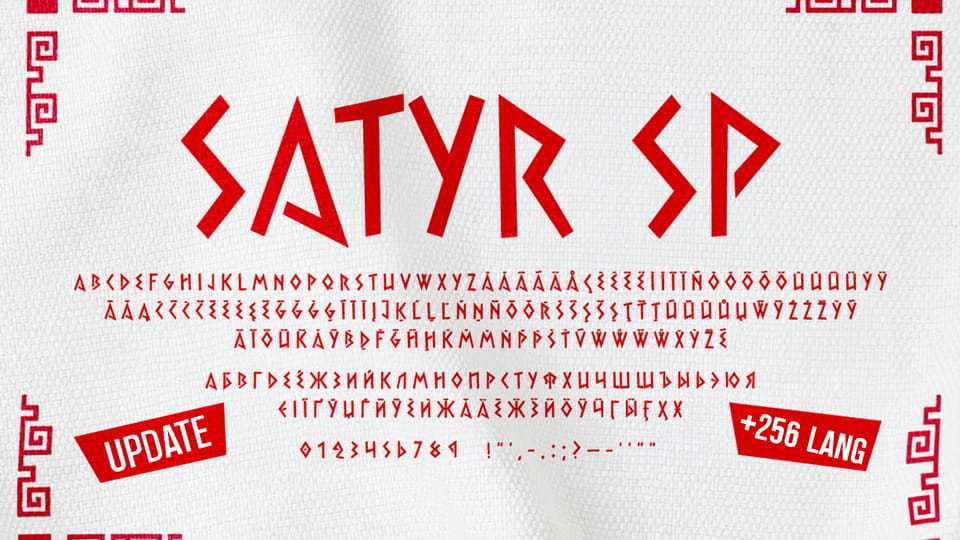
Download Satyr SP 2, a display typeface with sharp, broken forms and an uneven, lively rhythm. Its design reflects folk motifs, ornament, and imagery associated with the ancient cultures of Europe.
Designer: Sasha Pavljenko